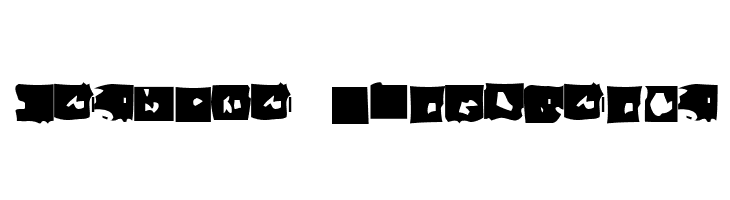
( Eutypoce - www.eutypoce.com/ )
A bold slab serif font with strong, block-like serifs and consistent stroke width.
( Eutypoce - www.eutypoce.com/ )
A bold, pixelated font with a retro digital style.
( Eutypoce - www.eutypoce.com/ )
A futuristic, geometric font with bold, angular letterforms and consistent stroke width.
( Eutypoce - www.eutypoce.com/ )
A pixelated, retro-style font with a blocky, geometric design.
( Etherbrian - www.etherbrian.com/ )
A geometric and abstract font with angular, fragmented letterforms and a futuristic aesthetic.
( Etherbrian - www.etherbrian.com/ )
A futuristic, geometric font with monolinear strokes and a digital aesthetic.
( Etherbrian - www.etherbrian.com/ )
A geometric, circular font with bold, segmented characters.
( Etherbrian - www.etherbrian.com/ )
A modern, digital-inspired font with geometric, line-based characters.
( Etherbrian - www.etherbrian.com/ )
A geometric, framed font with bold strokes and a modern, structured design.
( Etherbrian - www.etherbrian.com/ )
A modern, geometric font with characters enclosed in diamond shapes.